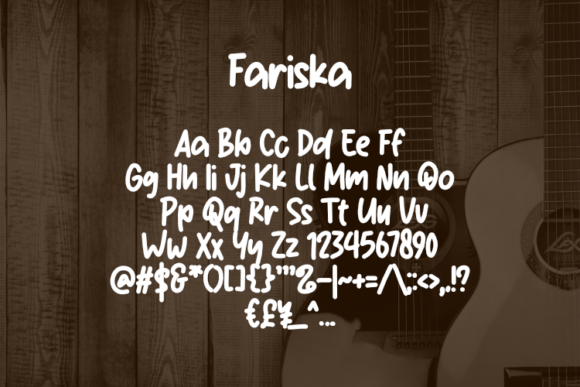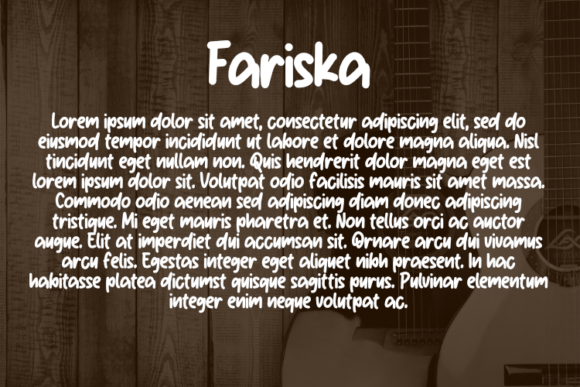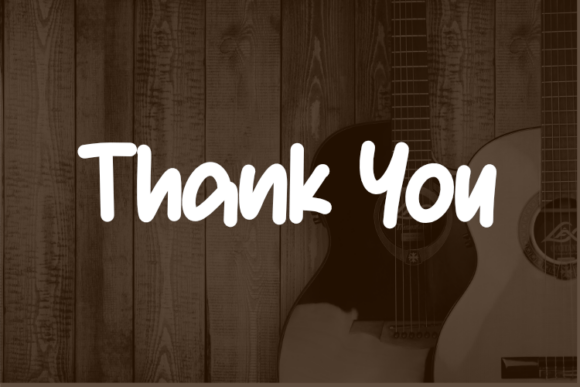
Farisika Font: Elevate Your Designs with Elegance and Versatility
In the world of typography, a font can make or break a design. With the vast array of typefaces available, selecting the right one can be a daunting task. However, if you’re looking for a modern, elegant, and highly versatile font, look no further than Farisika. This stunning typeface is designed to provide excellent readability across various media, making it an ideal choice for designers, crafters, and anyone looking to elevate their visual creations.
What is Farisika Font?
Farisika is a contemporary typeface that boasts a sleek and sophisticated aesthetic. Its design focuses on flexibility, ensuring that it can be used in a wide range of applications, from digital media to print materials. The font comes in the .otf (OpenType Font) file format, which offers superior cross-platform compatibility. This means that Farisika can be seamlessly integrated into various design software and office applications, including Adobe Creative Suite, Microsoft Office, and other design software.
Key Features of Farisika Font
- Modern and Elegant Design: Farisika’s sleek lines and sophisticated aesthetic make it perfect for designs that require a touch of elegance.
- Excellent Readability: The font’s clear and legible design ensures that it can be used across a wide range of media, from digital screens to print materials.
Benefits of Using Farisika Font
So, why choose Farisika for your design projects? Here are just a few benefits of using this exceptional typeface:
- Enhance Your Designs: Farisika’s elegant design adds a touch of sophistication to any project, making it perfect for designs that require a high level of professionalism.
- Improve Readability: The font’s excellent readability ensures that your message is conveyed clearly, whether you’re designing for digital or print media.
Who Can Benefit from Farisika Font?
Farisika is an ideal choice for a wide range of designers and crafters, including:
- Graphic Designers: Farisika’s modern and elegant design makes it perfect for branding, logos, and marketing materials.
- Web Designers: The font’s excellent readability and cross-platform compatibility make it an excellent choice for web design projects.
- Crafters and Makers: Farisika can be used for a variety of craft projects, including card making, scrapbooking, and other paper crafts.
In conclusion, Farisika is a versatile and elegant typeface that offers a wide range of benefits for designers and crafters. Its modern design, excellent readability, and cross-platform compatibility make it an ideal choice for various design projects. Whether you’re a graphic designer, web designer, or crafter, Farisika is sure to elevate your designs and enhance your workflow. So why wait? Discover the power of Farisika Font today and take your designs to the next level.